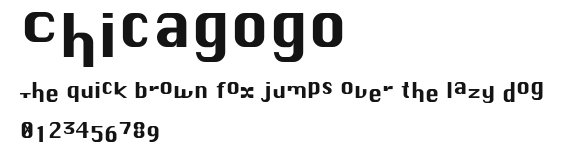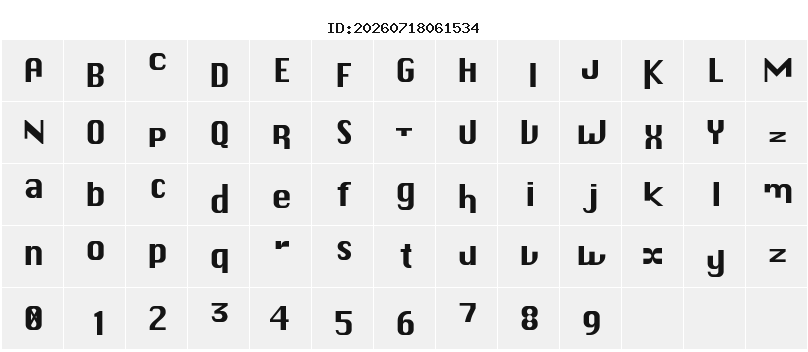
• Font Name: Chicagogo
• Full Font Name: Chicagogo
• Copyright: Another crejaculation from Amsterdam. This font was inspired by the original Chicago‐font © Sander Kessels
Chicagogo.ttf is a modern, elegant sans-serif font designed for ultimate readability and visual harmony. Perfect for branding, headlines, web design, and print materials.